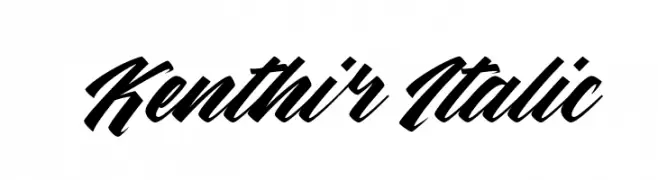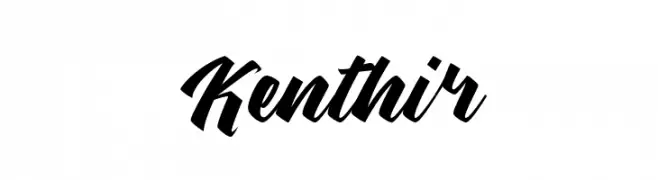
A cursive, elegant font with smooth, interconnected strokes.
A stylish, cursive font with elegant, flowing strokes.
A bold, italic script font with dynamic, connected characters.
A bold, dynamic script font with fluid, connected strokes and a slight slant.
A dynamic script font with elegant swashes and fluid strokes.
An elegant, cursive font with a sophisticated, handwritten style.
A bold, playful handwritten font with dynamic strokes and artistic flair.